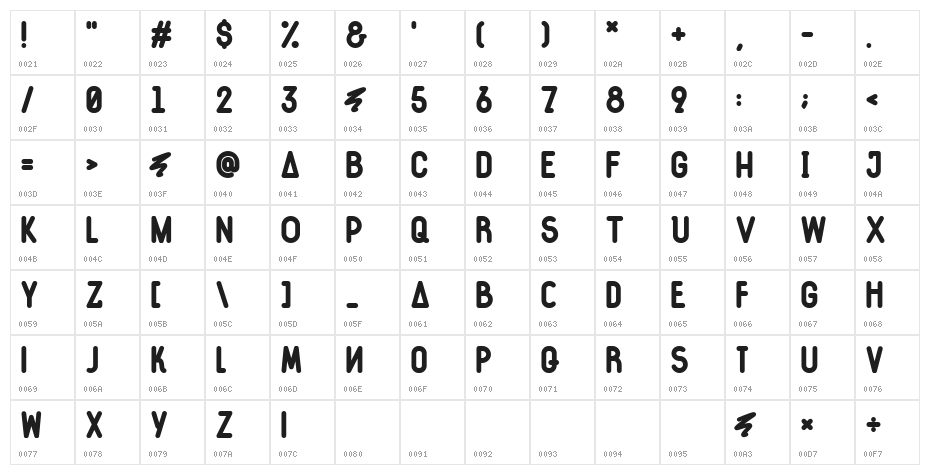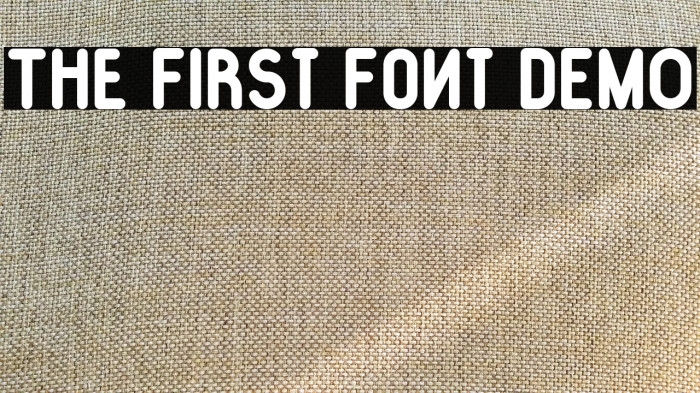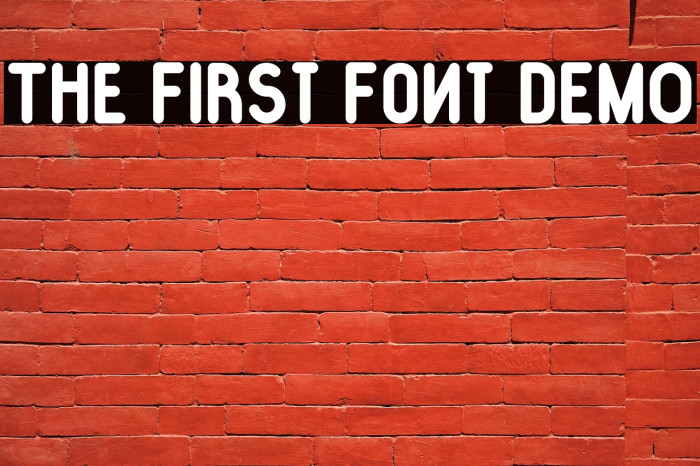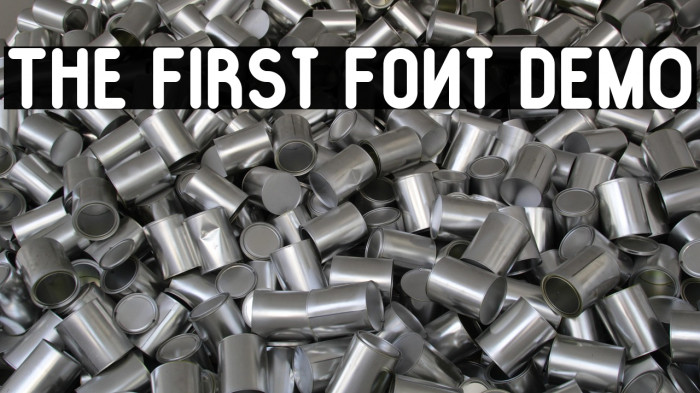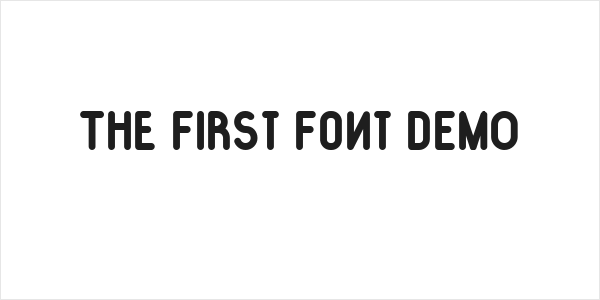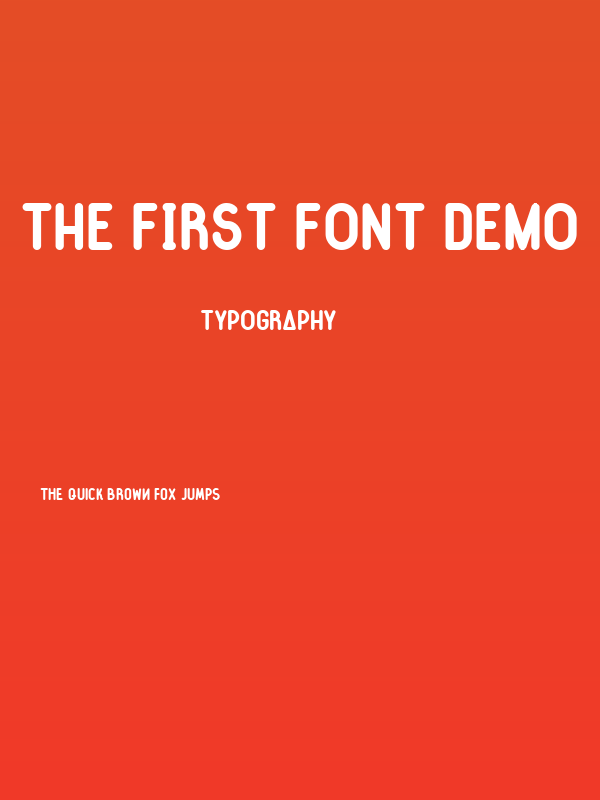
The First Font DEMO Font
The First Font DEMO Description
This font features a bold, rounded style with a modern and playful appearance. The characters are uniformly thick, providing a consistent and cohesive look. The uppercase letters are distinct with a slight geometric influence, while the lowercase letters maintain a similar rounded aesthetic. The numbers are bold and clear, making them easily readable. Special characters are included, maintaining the same rounded and bold style, ensuring consistency across all glyphs. This font is versatile, suitable for a variety of design projects that require a bold and friendly typeface.
| Proposed Projects | Ideal for branding, headlines, posters, and packaging designs that require a bold and friendly appearance. |